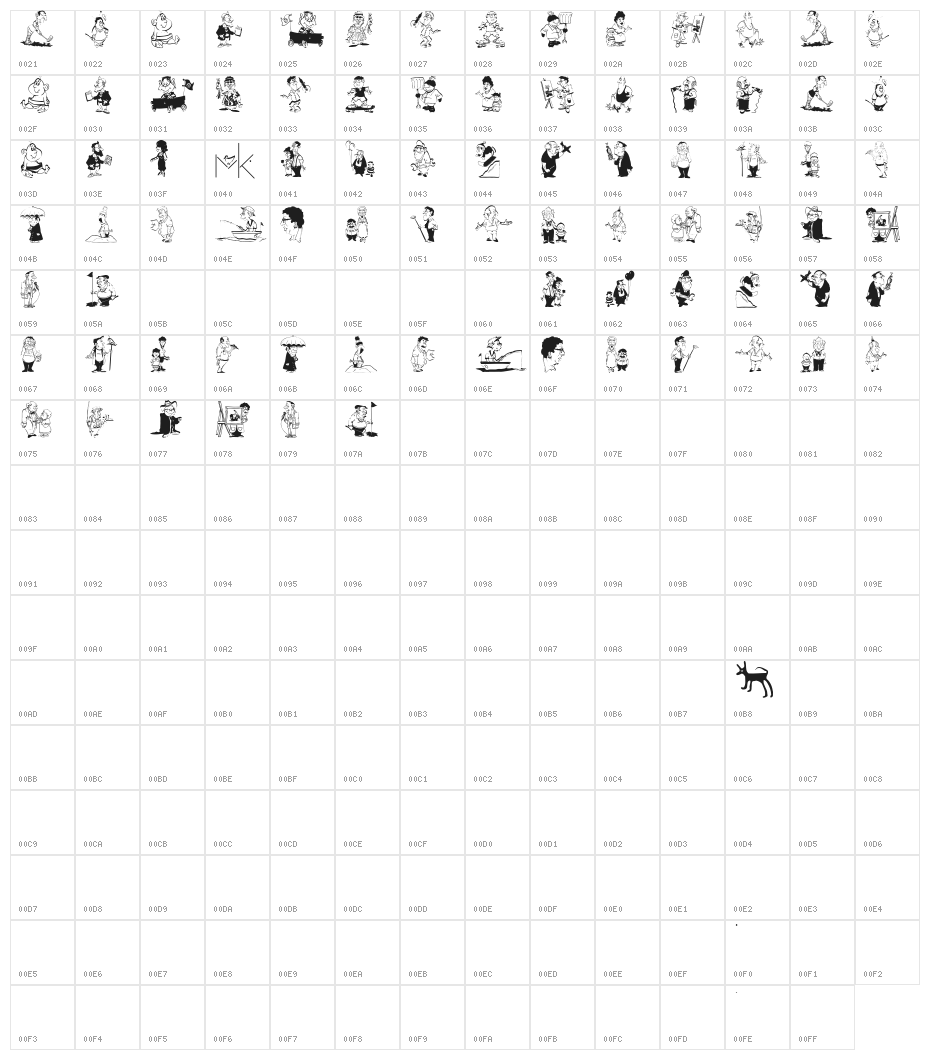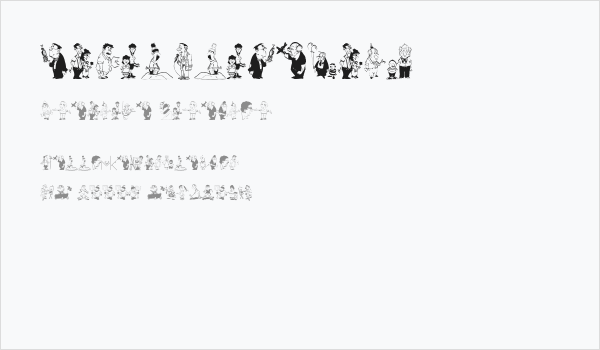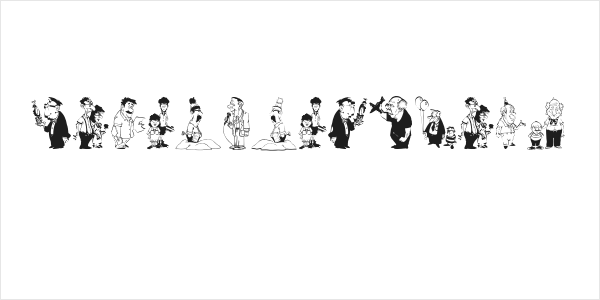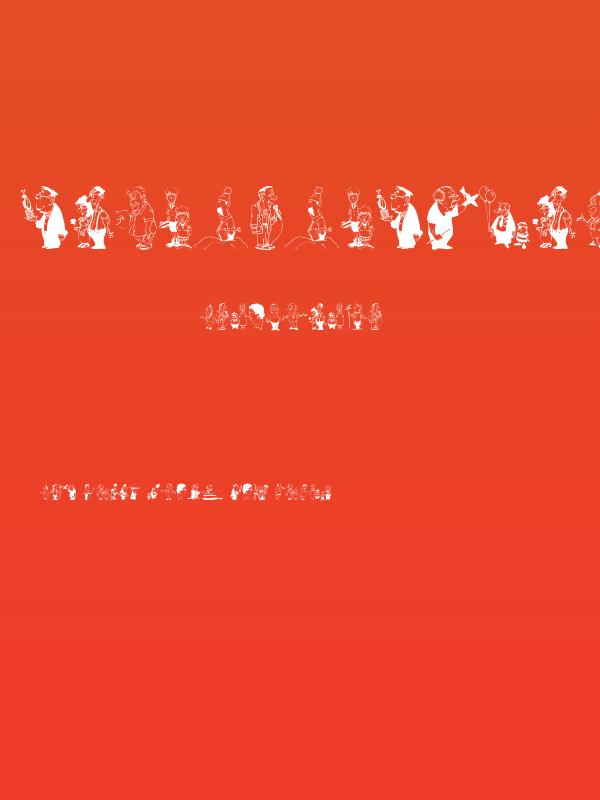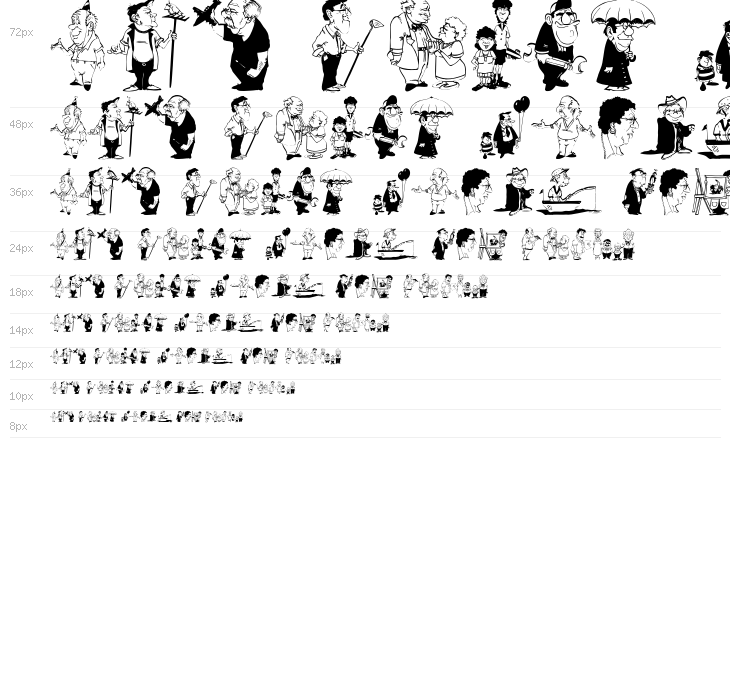
FamilyLifeBats Font
FamilyLifeBats Description
This is not a traditional font but rather a collection of cartoon-style illustrations depicting various family life scenes. Each character is uniquely drawn with exaggerated features and humorous expressions, capturing everyday activities and interactions in a whimsical manner. The style is playful and engaging, making it suitable for projects that require a lighthearted and entertaining visual element. The illustrations are detailed, with a focus on character dynamics and storytelling through imagery.
| Overall Style | Playful and Humorous |
| Use Case | Illustrations, Comics, Educational Materials |
| Proposed Projects | Ideal for children's books, comic strips, educational materials, and playful greeting cards. |